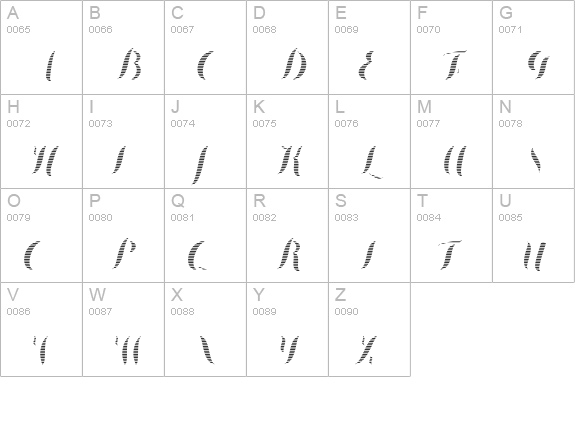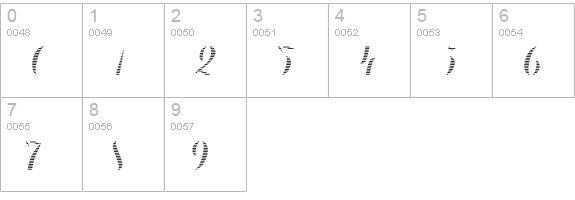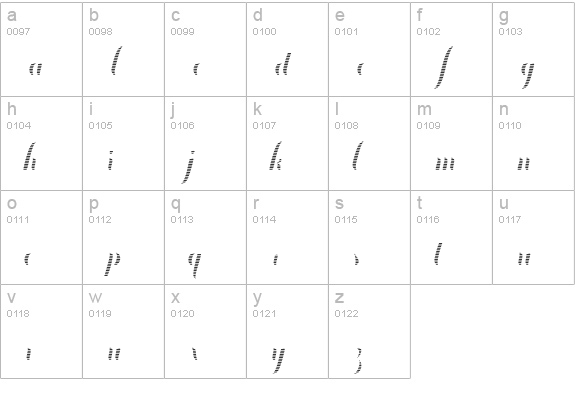
Chameleon Fill Stripe2 font is a unique and eye-catching typeface that is sure to make your designs stand out. This font features a combination of bold stripes and a chameleon-like fill, giving it a dynamic and playful appearance. Perfect for adding a touch of personality to your projects, Chameleon Fill Stripe2 font is versatile and can be used in a variety of design applications. Best of all, Chameleon Fill Stripe2 font is available for free download at FontsMarket.com. Whether you're working on a creative project, designing a logo, or crafting eye-catching headlines, this font is sure to make a statement. Download Chameleon Fill Stripe2 font today and let your creativity shine!